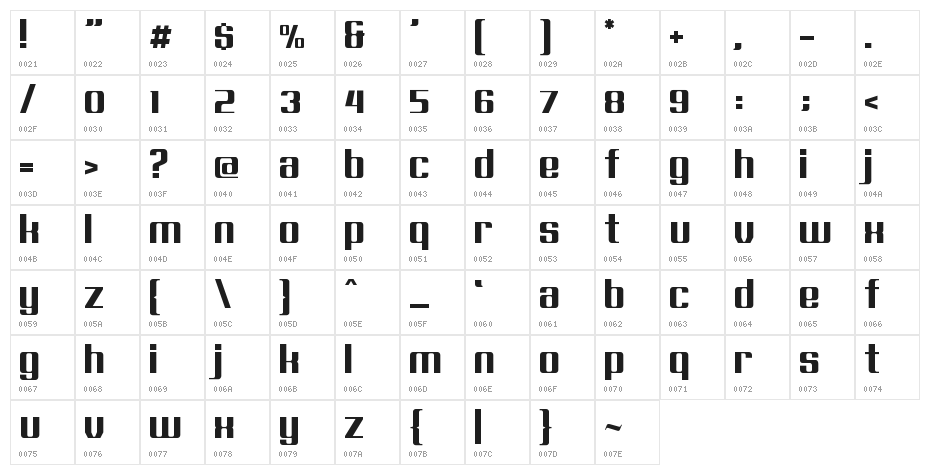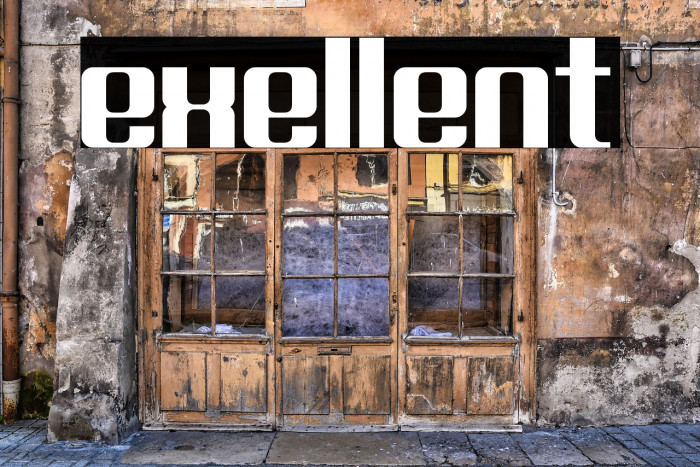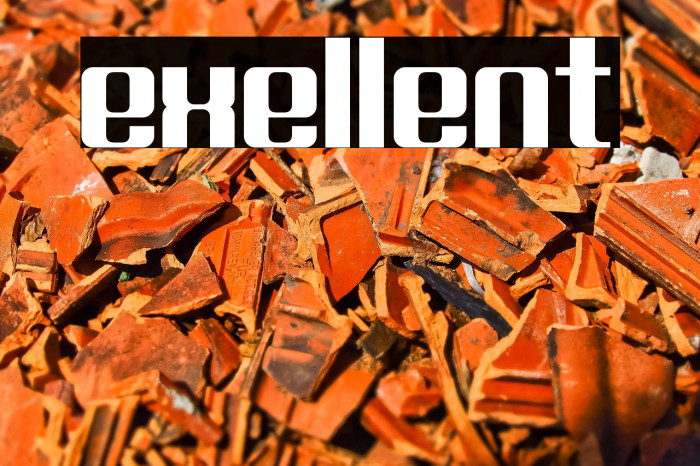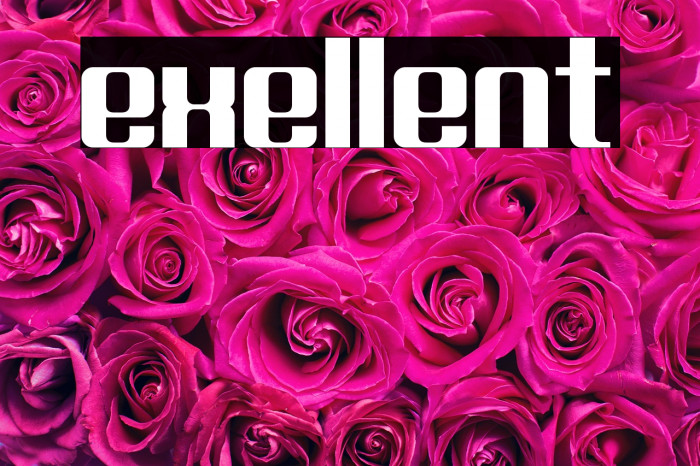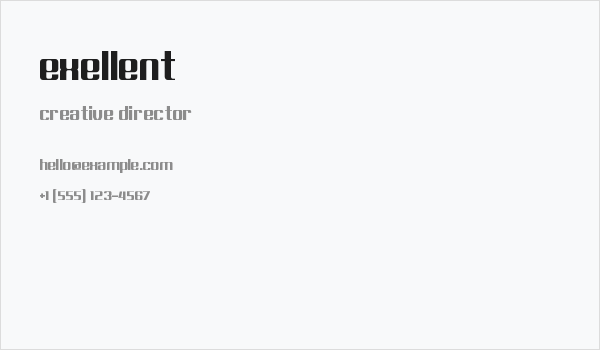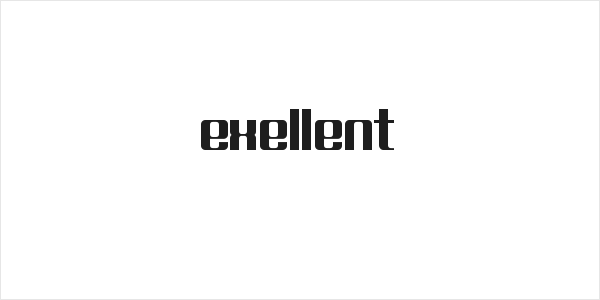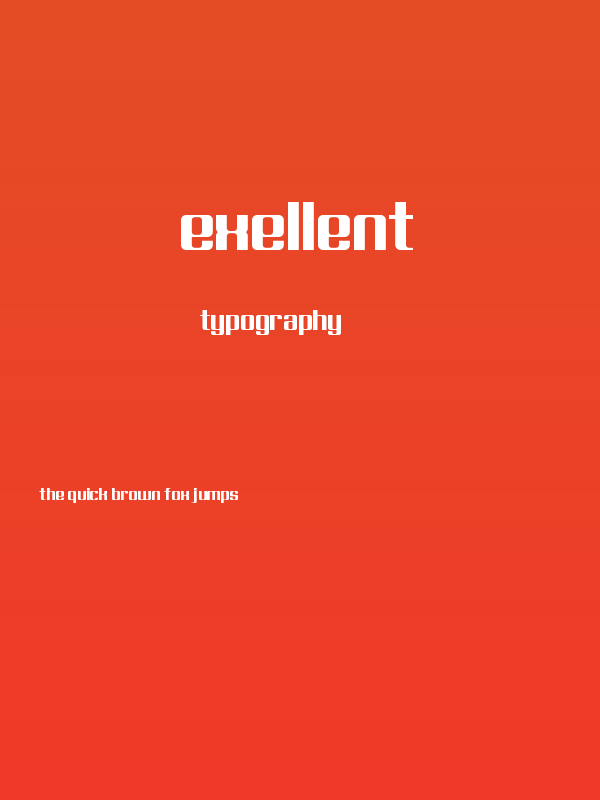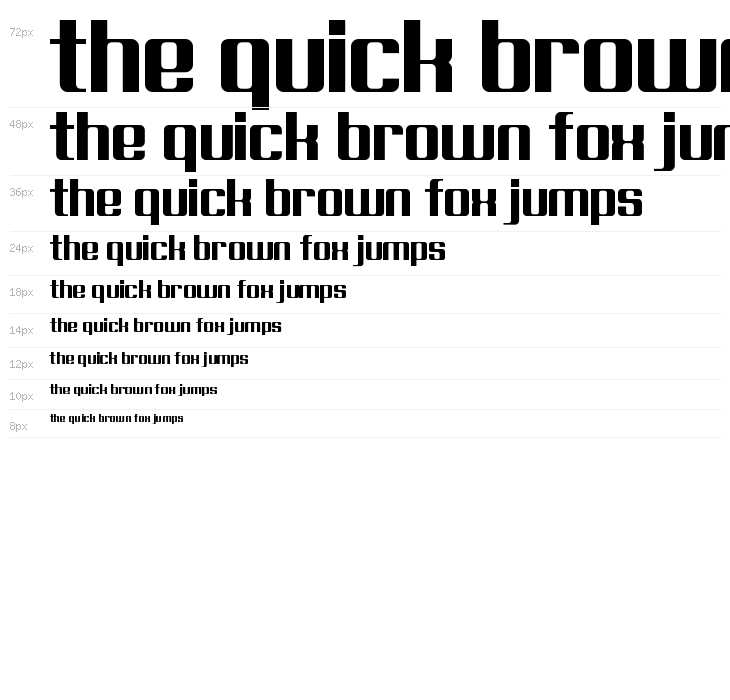
Exellent Font
Exellent Description
This font exhibits a bold, modern aesthetic with a strong geometric influence. The characters are uniformly structured, featuring a consistent stroke width that gives it a monospaced appearance, although it is not strictly monospaced. The uppercase and lowercase letters maintain a cohesive style, with sharp angles and clean lines that contribute to its contemporary feel. The numerals are equally bold and geometric, ensuring readability and visual impact. Special characters are designed to match the overall style, providing a seamless integration with the rest of the character set. This font is ideal for projects that require a modern, assertive look.
Proposed ProjectsIdeal for branding, headlines, posters, and digital media that require a strong visual impact.